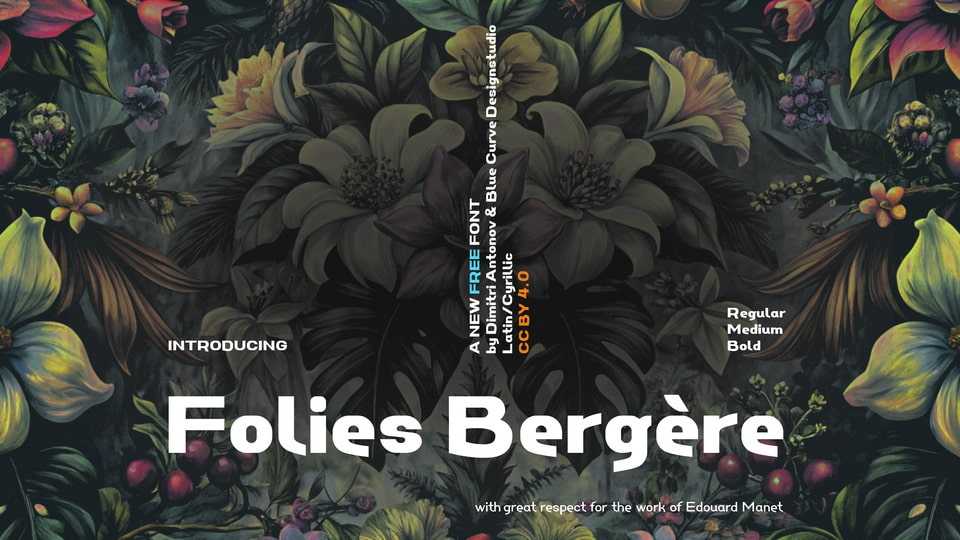
Download Folies Bergère font, an elegant serif typeface, blending classic sophistication with a modern touch. Its flowing curves and delicate serifs evoke the timeless beauty of 19th-century Parisian culture.
Designer: Dimitri Antonov